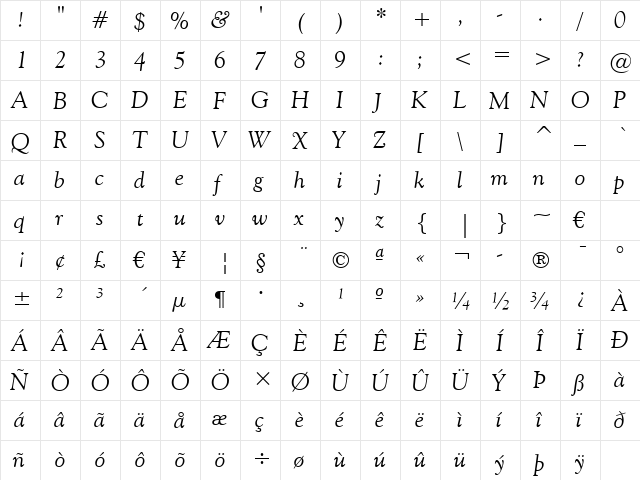
GoudyOlSt BT Italic Font Preview
GoudyOlSt BT Italic
Design Context for GoudyOlSt BT Typeface
GoudyOlSt BT takes a measured approach to typography — its balanced proportions and neutral character make it a reliable workhorse for both digital and print work. The slanted form adds forward momentum and visual energy.